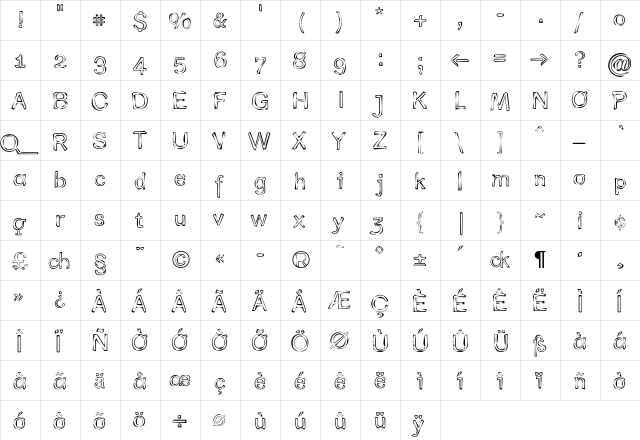
F2FBurnoutChaos LT Std Regular
| Foundry | Linotype Library GmbH |
| Designer | Alexander Branczyk |
Design Context for F2FBurnoutChaos LT Std Typeface
F2FBurnoutChaos LT Std is a composed and adaptable typeface that performs quietly and consistently across a wide range of design contexts. Its slender proportions lend an understated elegance to any composition.